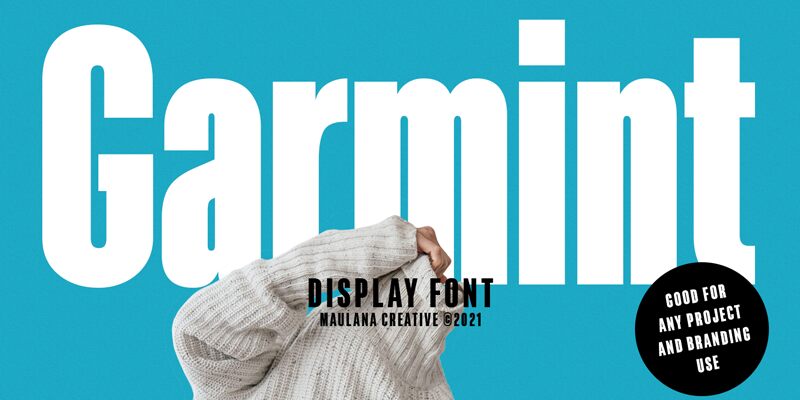
Garmint Bold is a narrow, bold sans serif font from the Garmint family, designed by Maulana Creative. It's perfect for headlines and logos in projects requiring a bold statement.